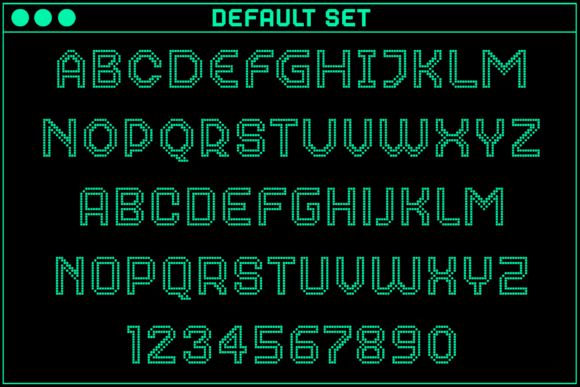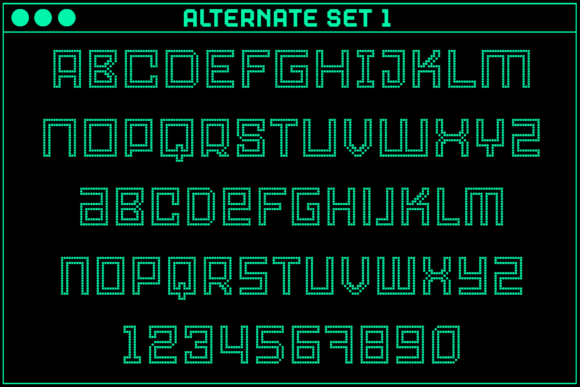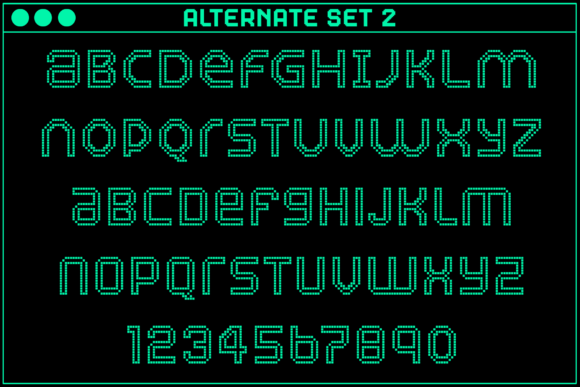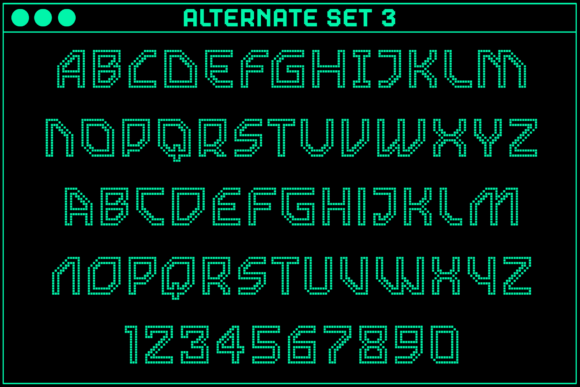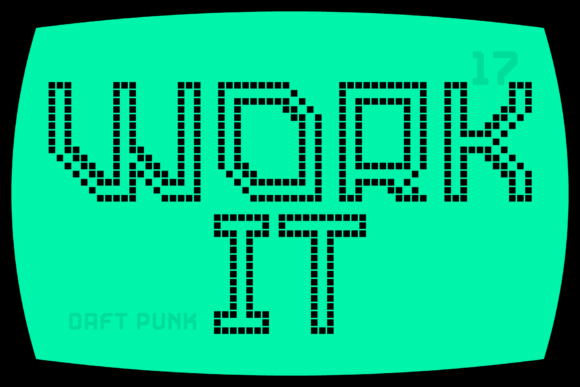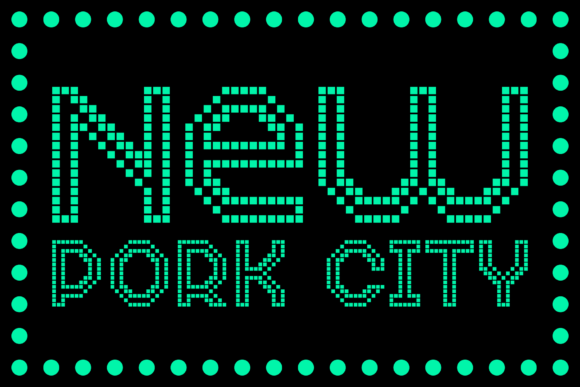
Introduction to Gamer Inline Squares Font
Remember the thrill of creating your first pixel art masterpiece in a retro video game? The hours spent meticulously placing each block to bring your vision to life? That same nostalgic charm can now be infused into your designs with the Gamer Inline Squares Font. This unique, pixelated display font adds a distorted and trendy touch to all your creative projects, from digital art to graphic design.
As a valuable resource for designers, Gamer Inline Squares Font offers a high-quality, free download that’s perfect for adding a touch of retro flair to your designs. With its PUA encoding, you can easily access all glyphs and swashes, giving you complete creative control over your projects. Whether you’re working on a design project with a transparent background or need a font to add some texture to your layout, Gamer Inline Squares Font is an excellent choice.
Key Features of Gamer Inline Squares Font
- Unique Inline Squares Design: This font features a distinctive inline squares design that adds a creative touch to any project.
- Perfect for Gaming and Retro-Themed Projects: The Gamer Inline Squares Font is specifically designed for gaming and retro-themed projects, adding a nostalgic touch to any design.
Honest Review: Gamer Inline Squares Font
I recently stumbled upon the Gamer Inline Squares Font, and I have to say it’s a great addition to any designer’s toolkit. As a design resource, it’s perfect for creative projects that require a modern, edgy feel.
The font features a unique, inline design with square shapes that give it a distinctive look. I appreciate how it can be easily customized to suit different design needs.
- Great for use in digital design, including logos, icons, and graphics
- ⚠️ Limited font sizes and styles available, which may limit its versatility
- ⚠️ Not suitable for use in print design, as the font may not scale well
Overall, I’m impressed with the Gamer Inline Squares Font. It’s a great addition to any designer’s arsenal, offering a unique and modern look that’s perfect for creative projects. While it may have some limitations, I highly recommend giving it a try.
The Gamer Inline Squares Font is a unique and stylish design resource that can elevate your creative project to the next level. With its transparent background and high-quality design, this font is perfect for gamers and non-gamers alike.
Common Use Cases for Gamer Inline Squares Font
The Gamer Inline Squares Font is perfect for a variety of use cases, including gaming posters, social media graphics, gaming logos, and more. You can also use this font for non-gaming projects, such as tech-related designs and creative projects.